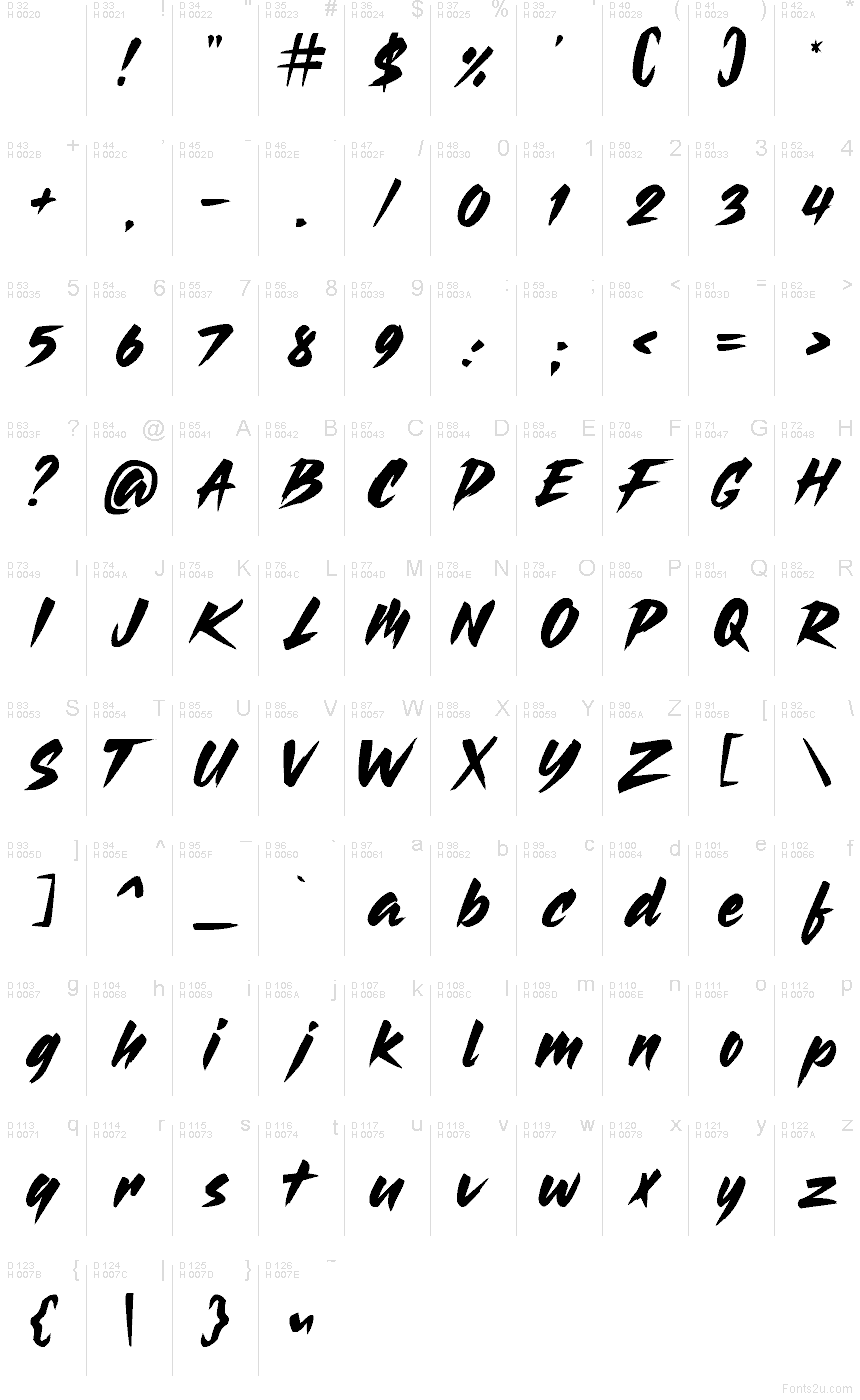
Stroke Rider
Stroke Rider font by BlackFridayFont FMF is a free brush typeface that solves a familiar challenge: getting bold, handmade energy without losing clarity. Its thick, inky strokes feel like they were pulled fast across a poster, yet the letters lock together in a clean, slanted rhythm that reads easily from a distance. The slightly compressed shapes and tight spacing give it punchy impact without looking messy or chaotic.
Using Stroke Rider, you can push attitude into sports graphics, streetwear logos, gig posters, YouTube thumbnails, cafe boards, or bold social media promos. This free font shines when used large, letting the rough edges and brush texture really show. For body text or small captions, pair it with a simple sans serif to keep everything grounded while Stroke Rider handles the headline drama.